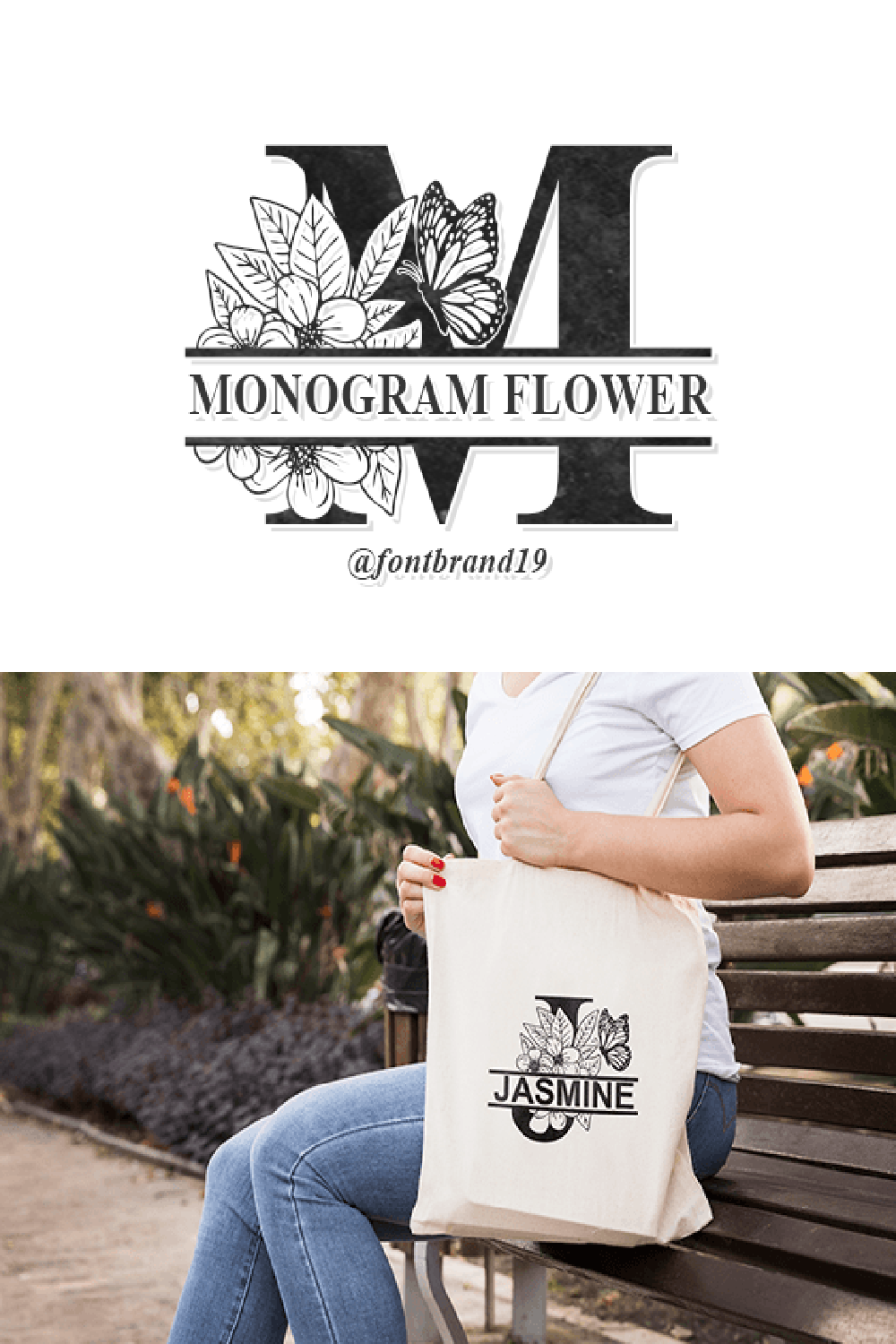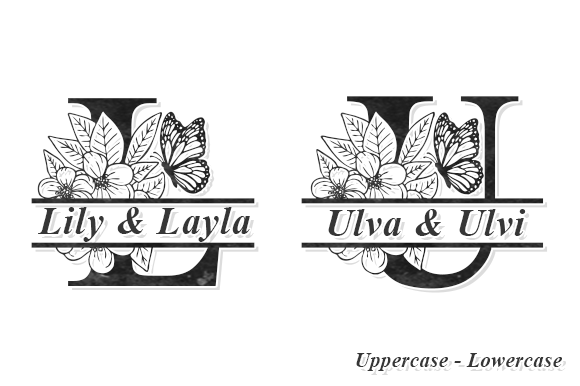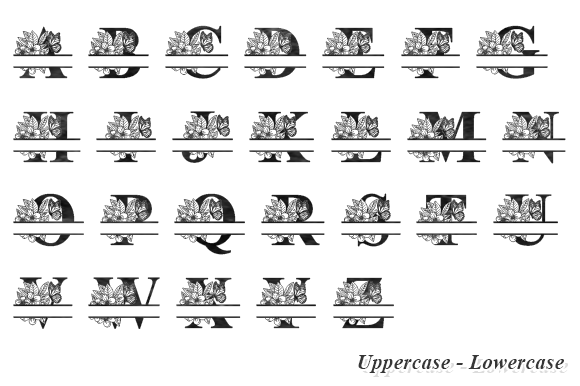
Split Monogram Flower Font
About the Split Monogram Flower Font
Experience the unique personality of Split Monogram Flower Font, a font designed for impact. Split Monogram Flower is an elegant decorative font, featuring lovely ornaments. Fall in love with its authentic feel and use it to create gorgeous wedding invitations, beautiful stationary art, eye-catching social media posts, and cute greeting cards.
Split Monogram Flower Font Usage Examples